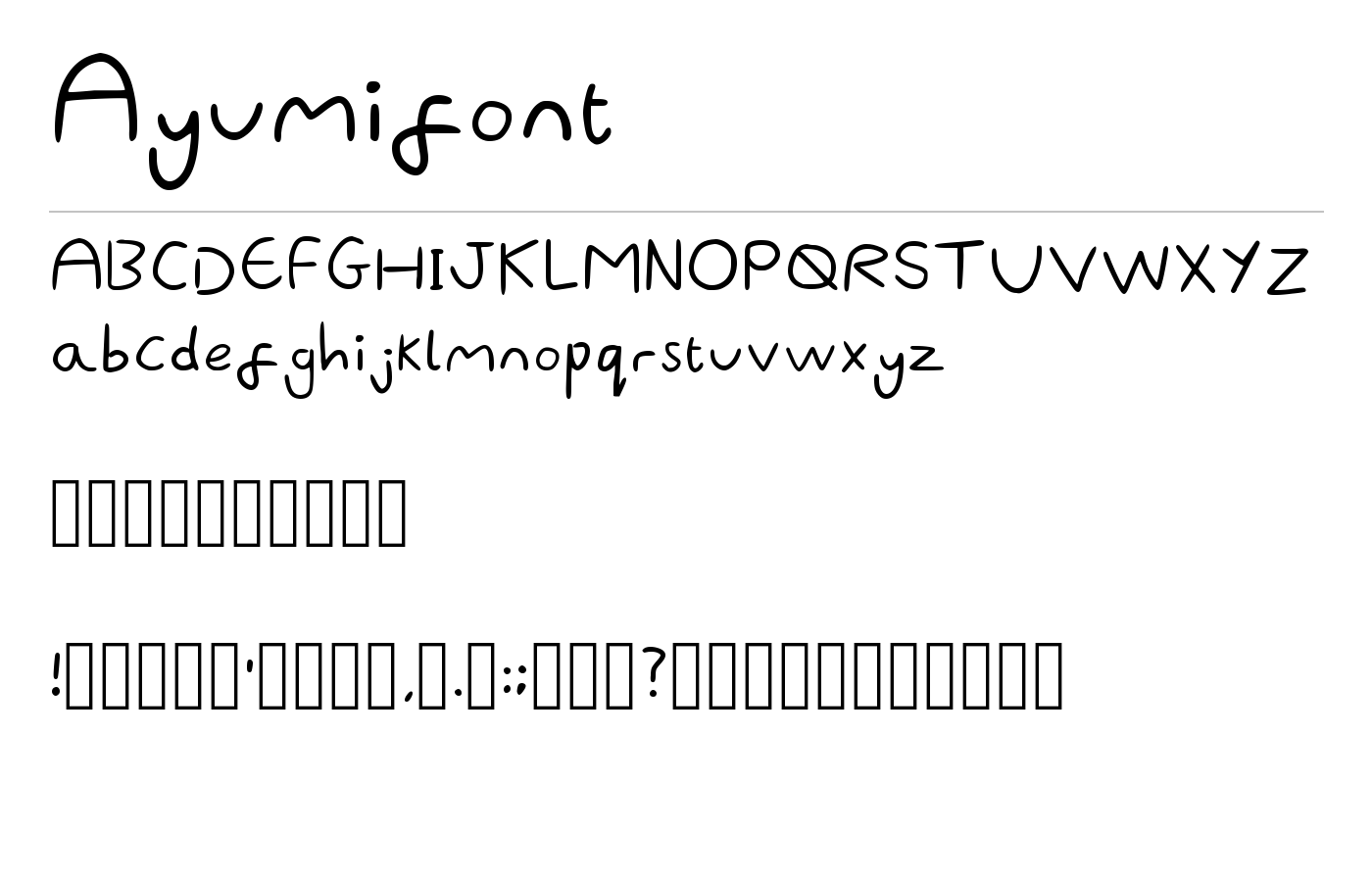
Ayumifont is a casual handwritten sans serif font with a light and playful feel, featuring irregular stroke widths and quirky letterforms that convey warmth and charm. Its upright, slightly uneven characters and open shapes create a friendly and approachable personality, making it ideal for personal projects, creative branding, and informal communication. This font works best in headlines, invitations, and children's content where a relaxed, human touch is desired.
Ayumifont